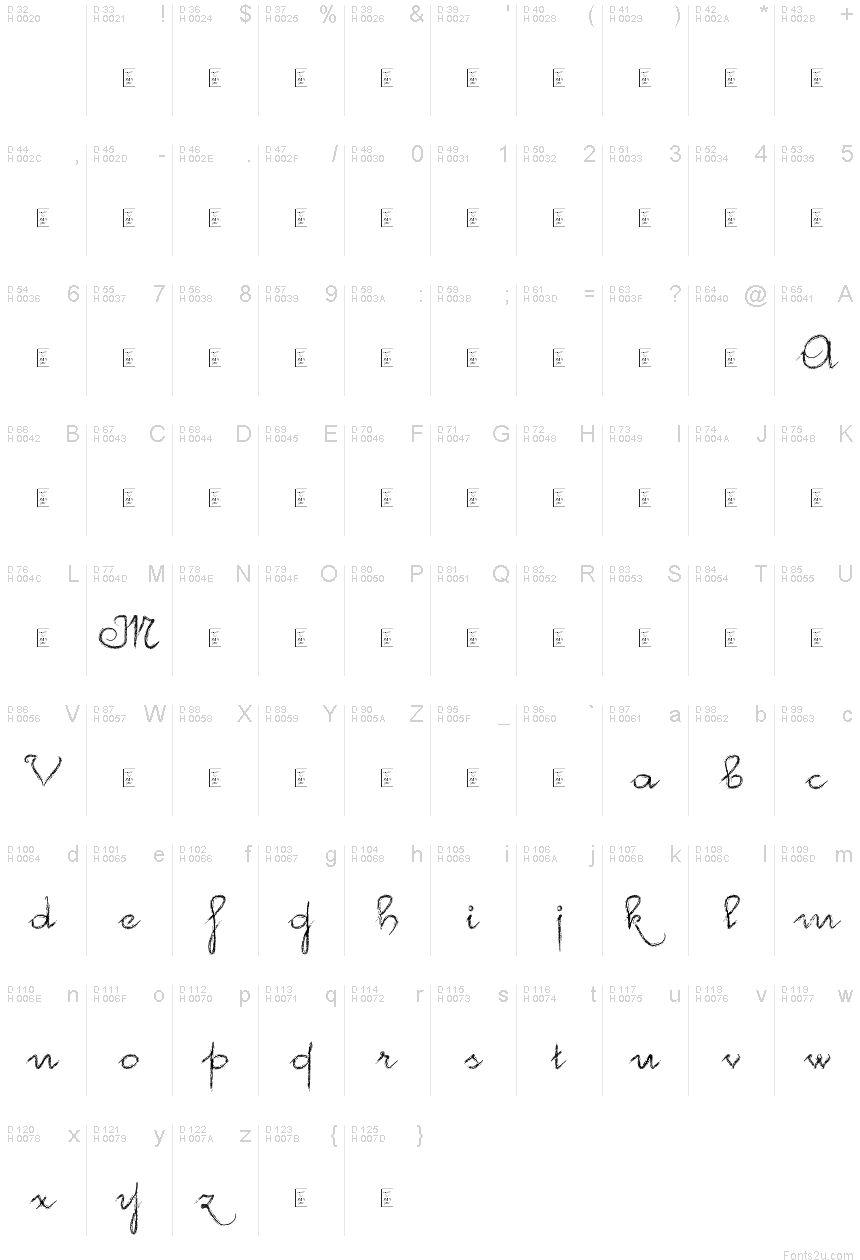
McVincenzo by Murat Yegul is a free distressed script font with oversized loops and a restless, ink-scraped surface. Its letters swing between broad circular gestures and tight, angular joins, giving the line an improvised signature quality without smoothing away the rough edges.
It can turn a band name or fashion label into a raw, hand-marked signature. The sweeping forms also suit album covers, streetwear graphics, and event posters tied to punk, underground, or experimental scenes. In those settings, the lettering can become part of an emblem or scrawled mark rather than serving as neutral text.
The font includes uppercase and lowercase letters, numerals, common accented characters, and symbols.